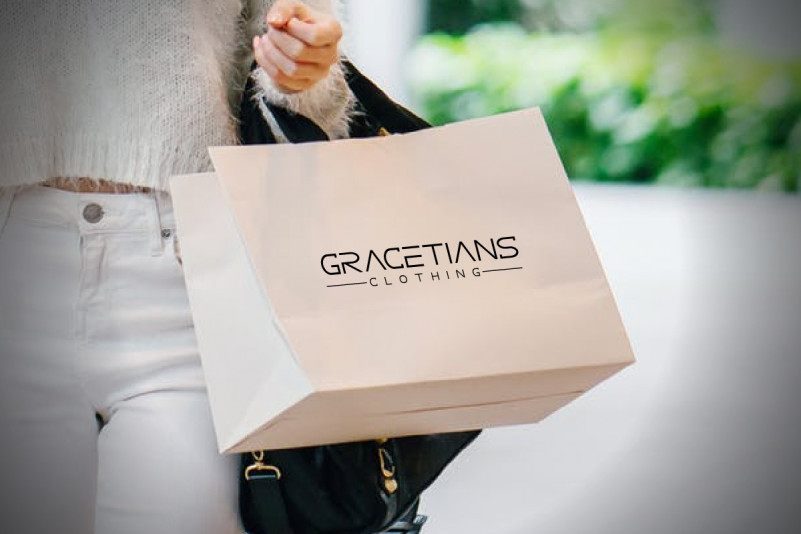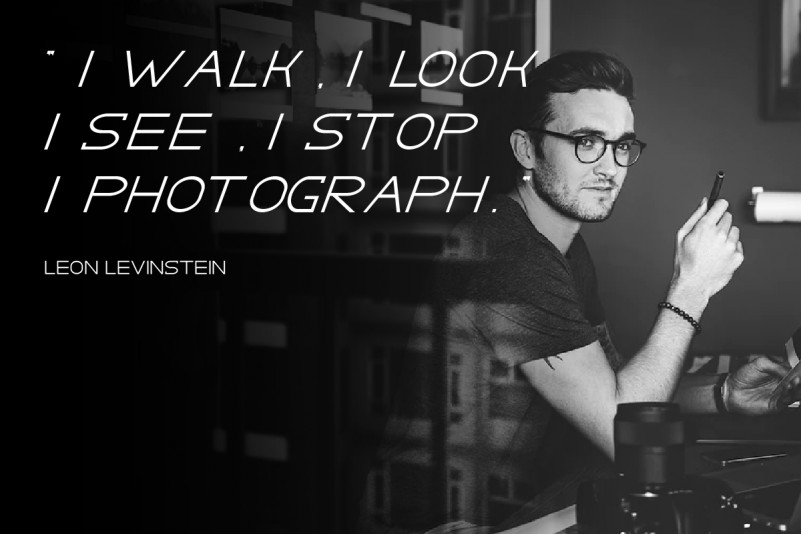
Gracetians Typeface
GRACETIANS is a modern futuristic yet stylish font. This is a new kind of SANS Display font with unique and exclusive glyph. Will be perfect for branding, logo, etc. It is light but beautiful. Great for stationery, business card, signage, flyer, brochure etc. There are many industries that is suitable for this font : construction, real estate, services, law firm, startup, apps, technology, agency, studio etc
GRACETIANS Sans Serif Display Font